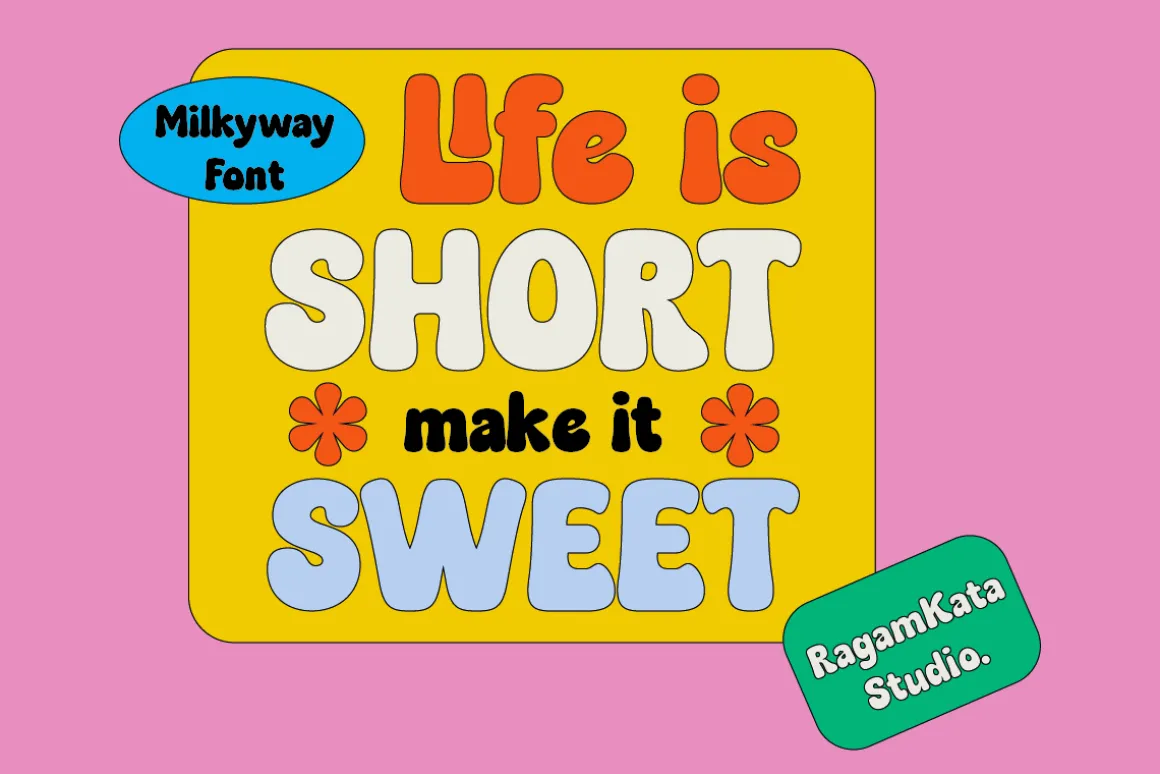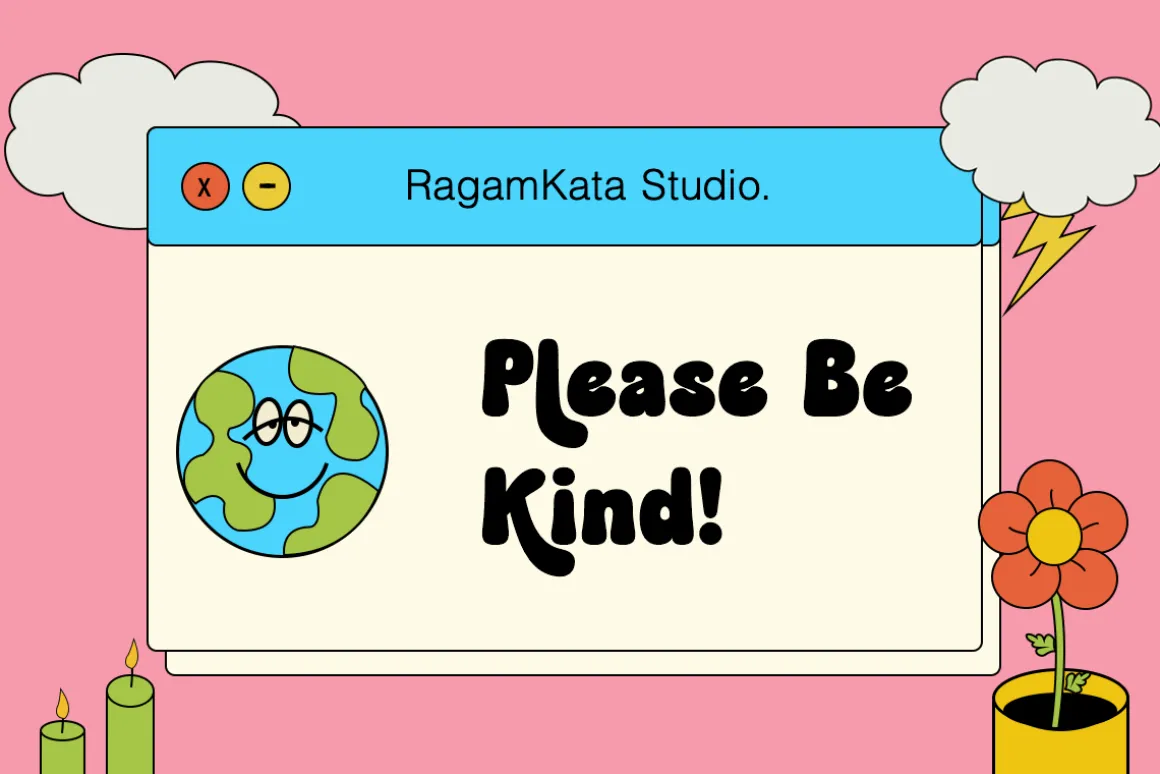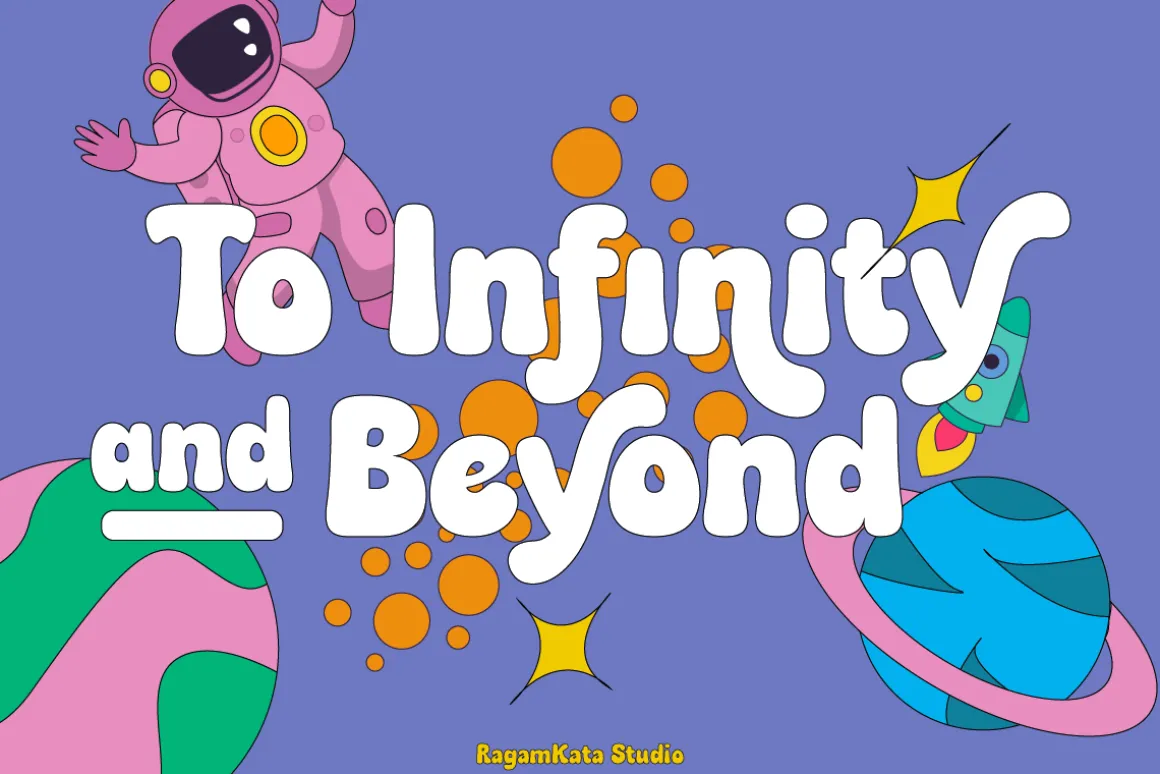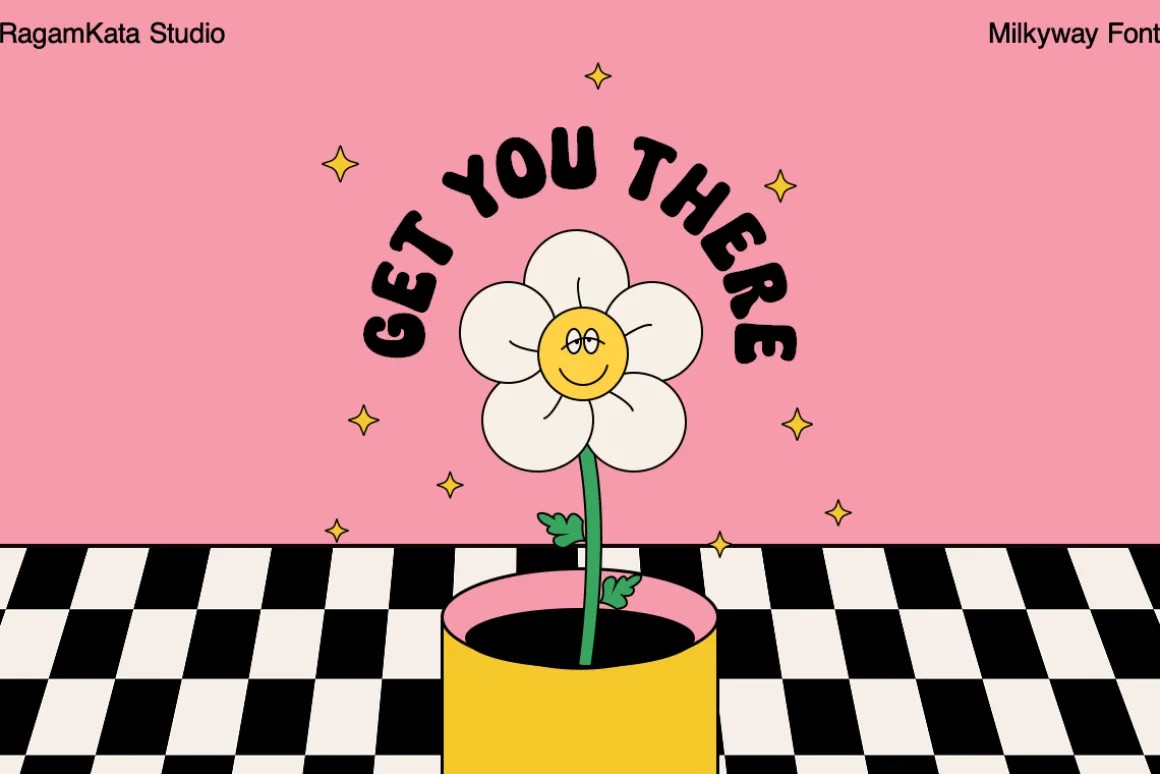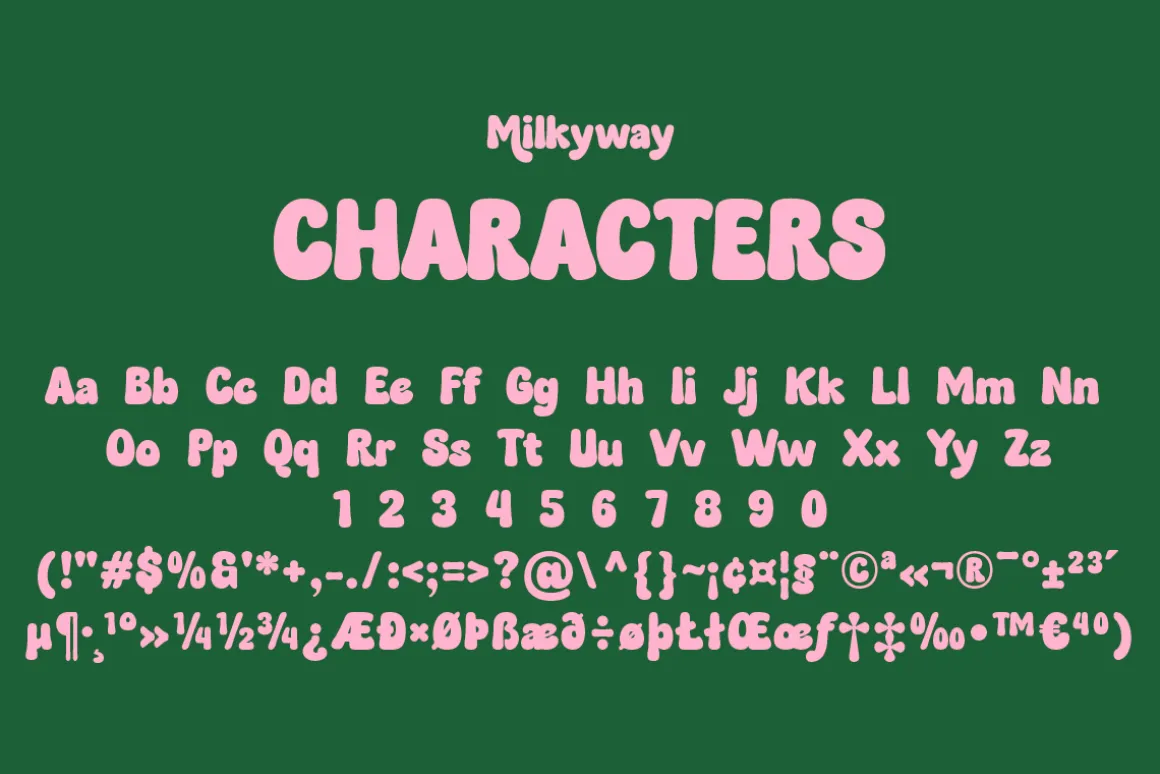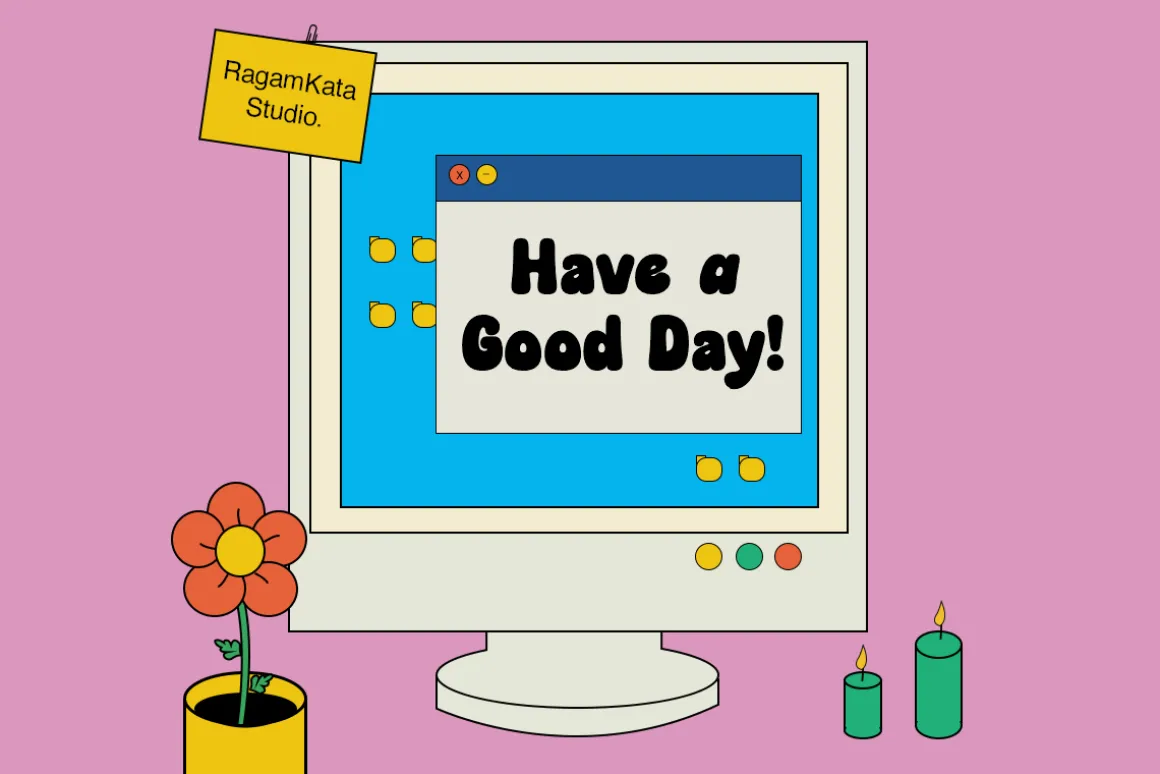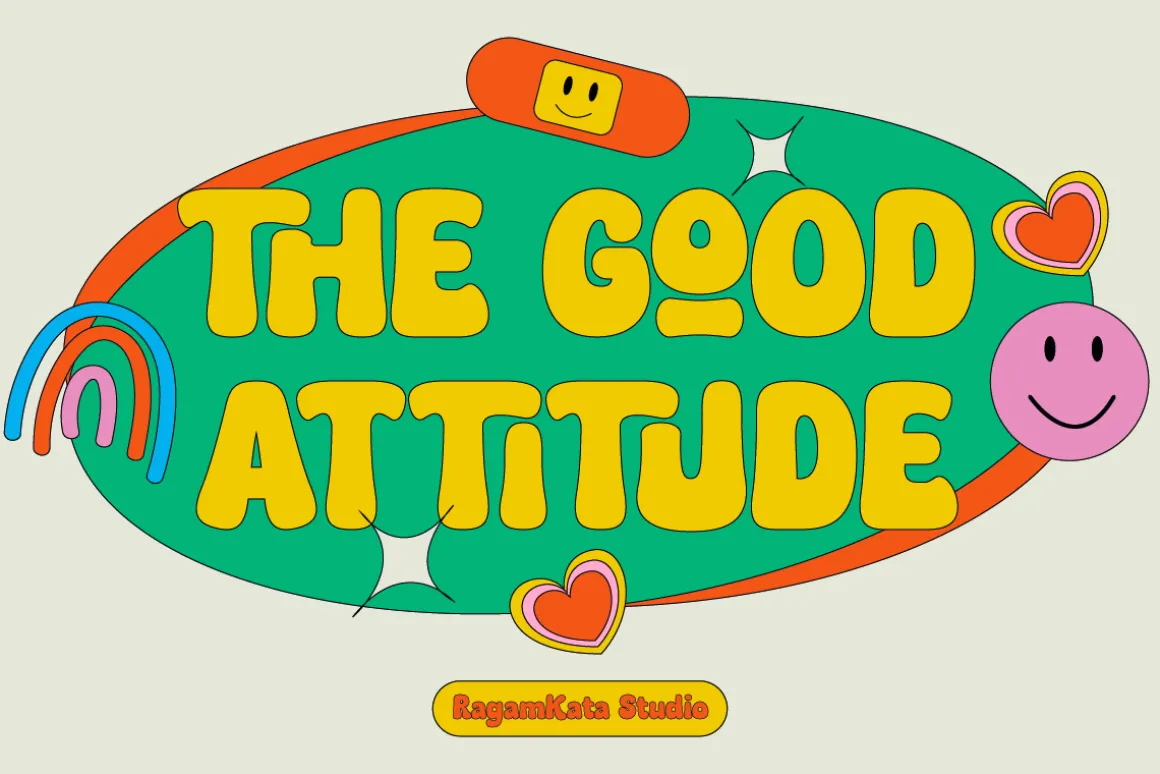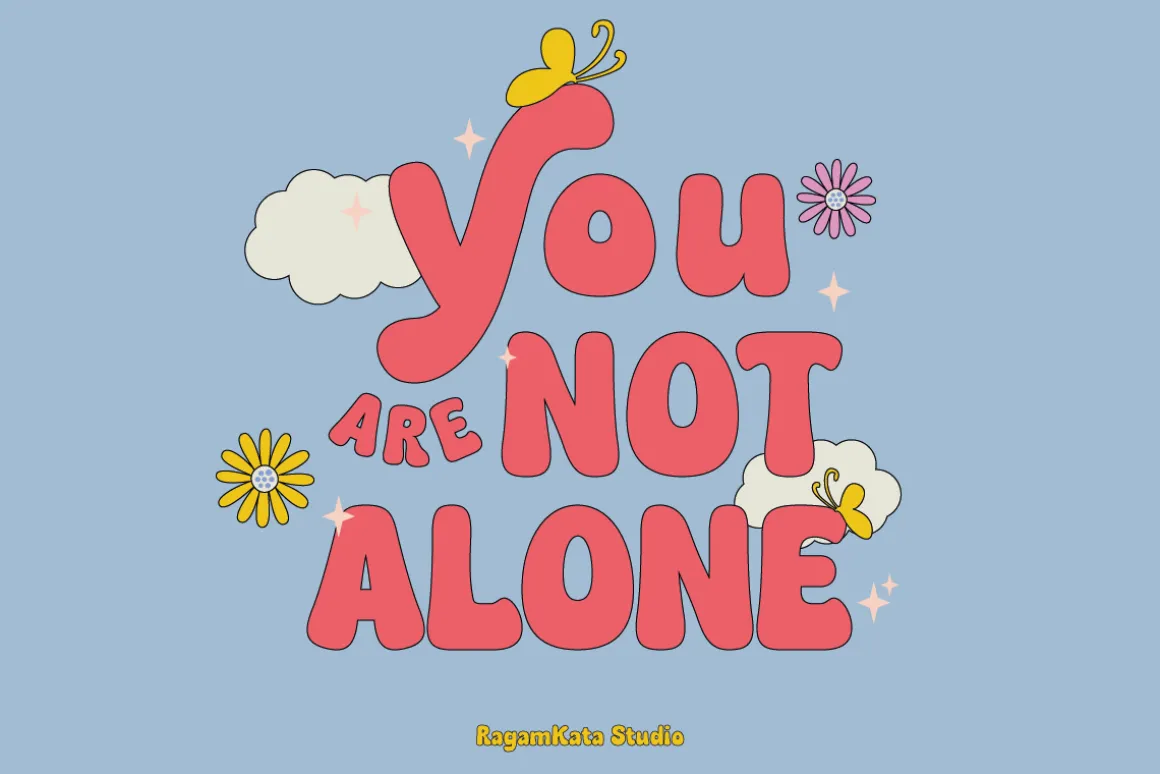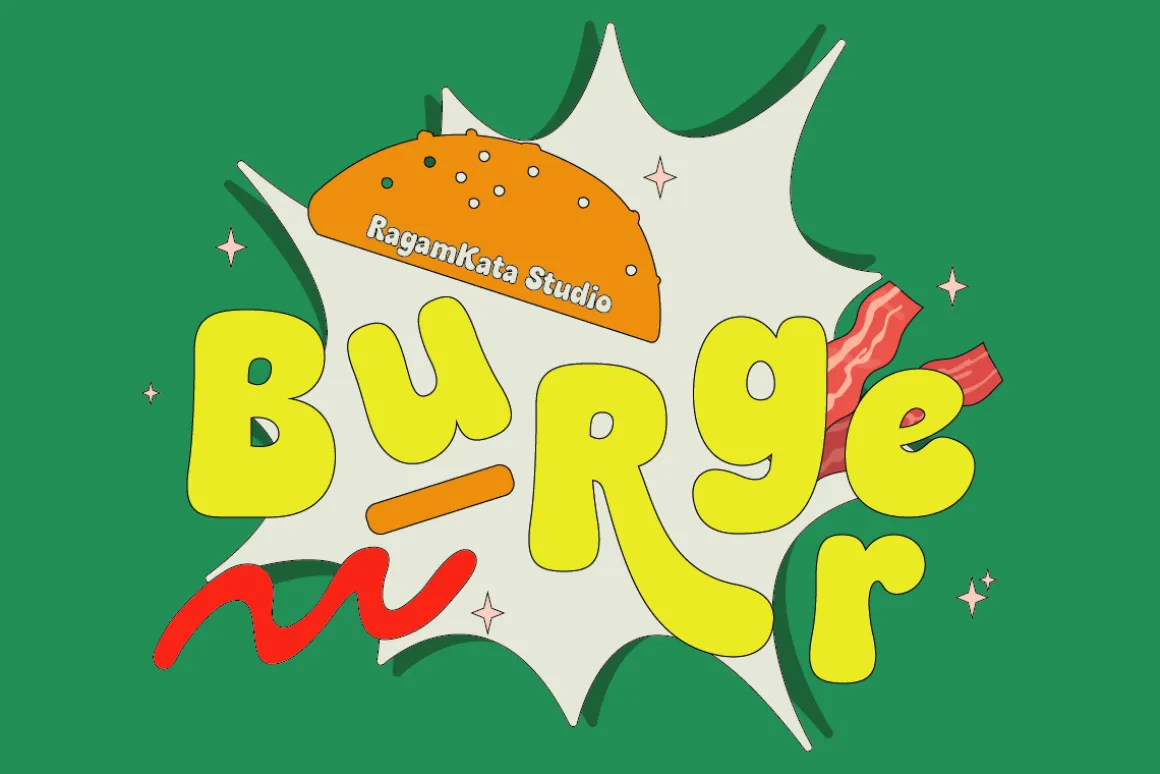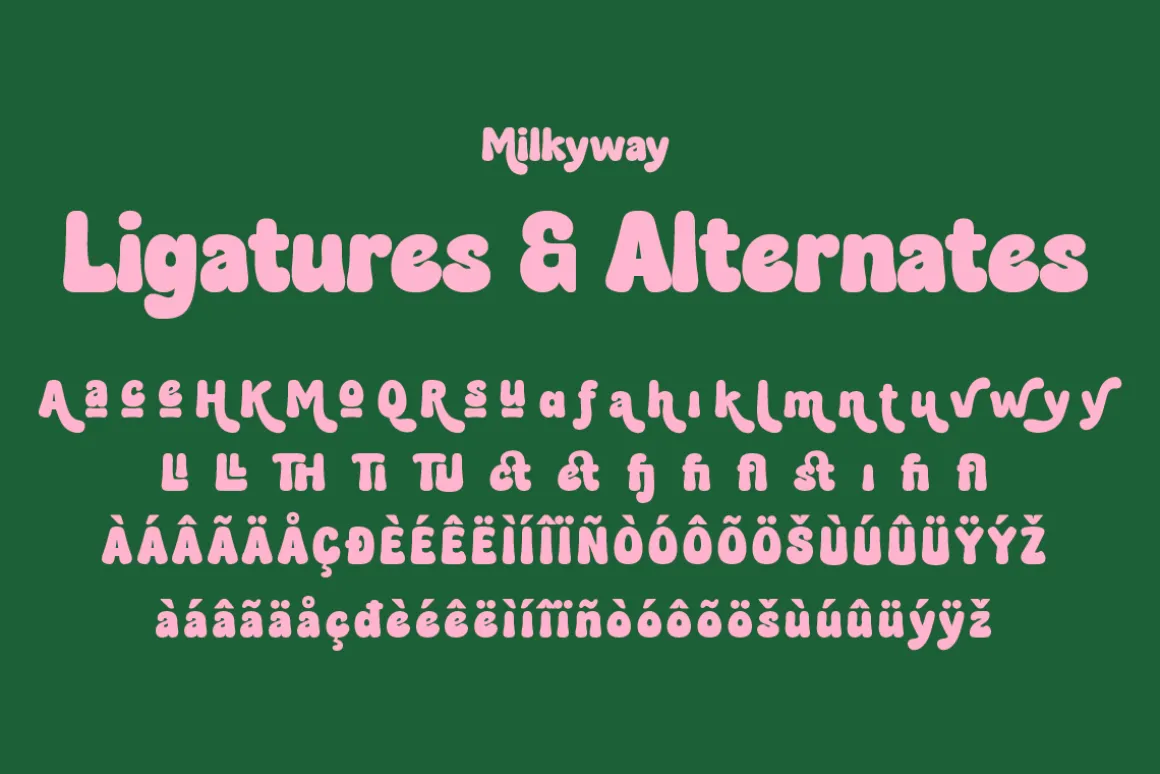
Milkyway, a bubbly-bold font that is perfect for making your project looks even morefun! It’s rounded and curvy shape makes it more unique. Milkyway is very ideal forvariety design projects, such as posters, Invitations, greeting cards, logo, and manymore. Milkyway will jolly up you and your audiences! Get this font now to magnifyyour design!
Milkyway font will also include some features :
- Ligatures & Alternates
- Letters, numbers, symbols, and punctuation
- Multilingual Support